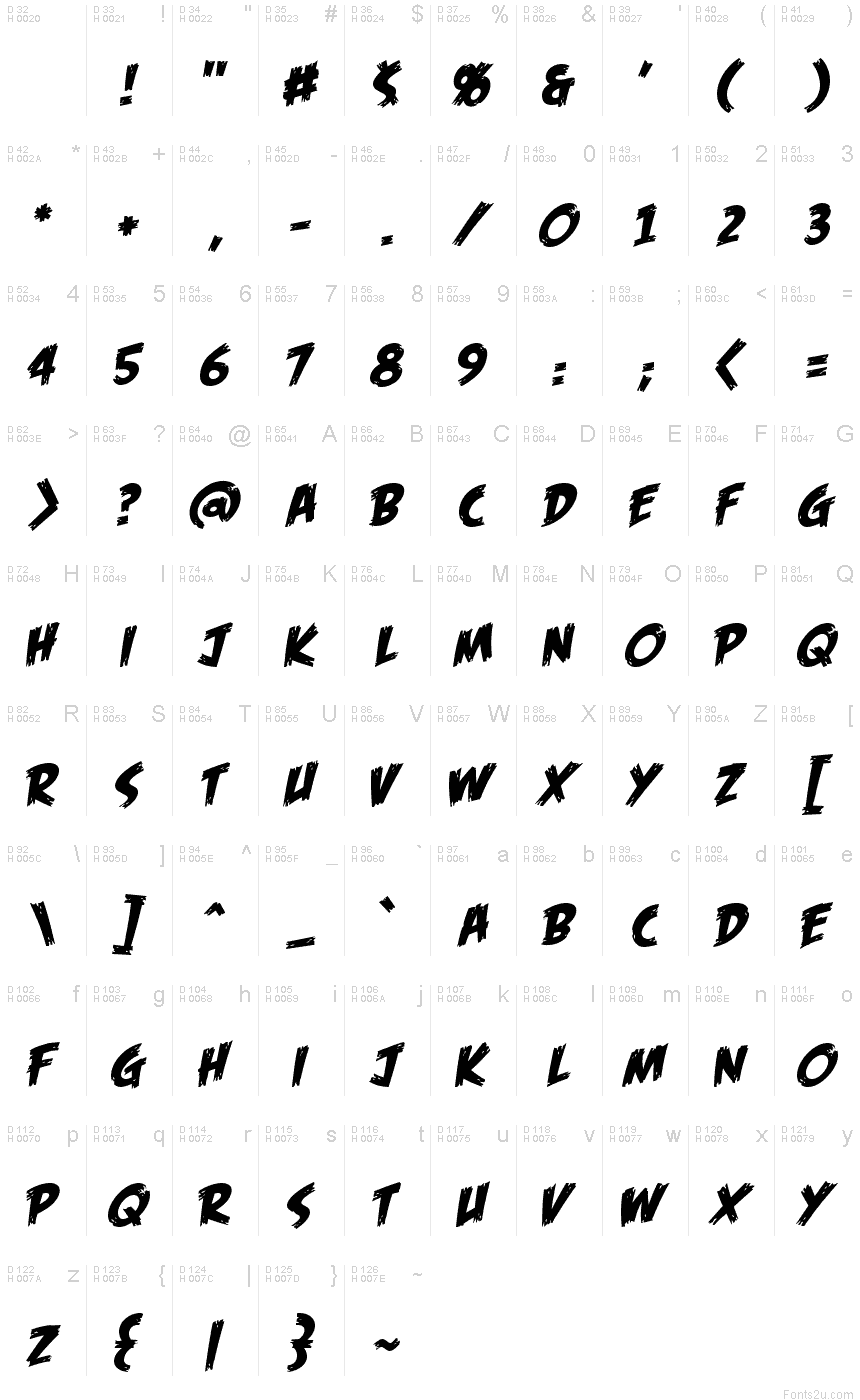
Feast of Flesh BB Italic
Feast of Flesh BB Italic font by Nate Piekos is a free scary display typeface that lunges off the page with slashing, ink-heavy strokes. The letters look like they’ve been clawed onto a wall—ragged edges, smeared angles, and a fast, aggressive slant that screams motion and panic. Part of the Feast of Flesh BB family, this style feels like a grindhouse title card or a blood-splattered horror comic, instantly setting a wild, chaotic tone.
Using Feast of Flesh BB Italic, you can crank up the tension on horror movie posters, Halloween flyers, comic book covers, haunted house signage, game logos, and spooky YouTube thumbnails. The dense, black shapes hold up at large sizes and against textured or photo backgrounds, so it stays legible even when things get messy. This free font works best when paired with a clean, understated sans serif for taglines or credits to let the main title do the screaming.